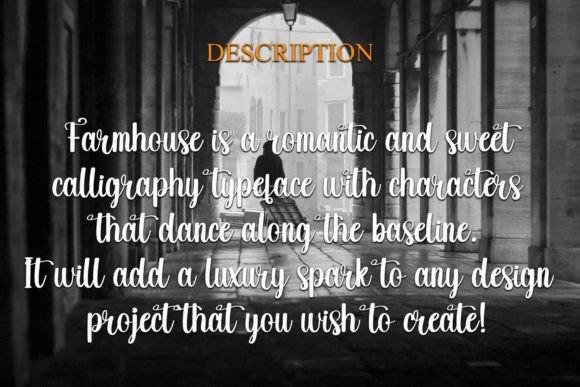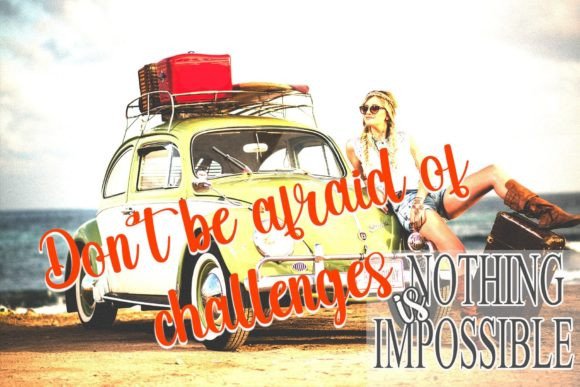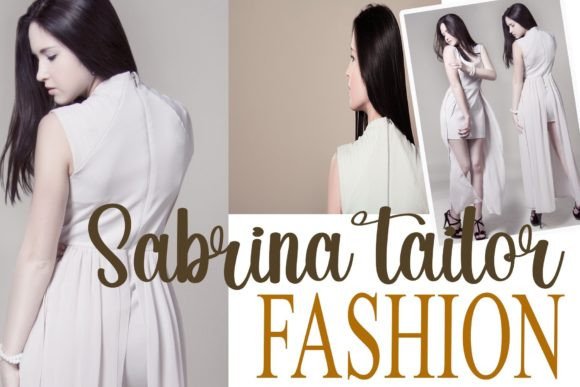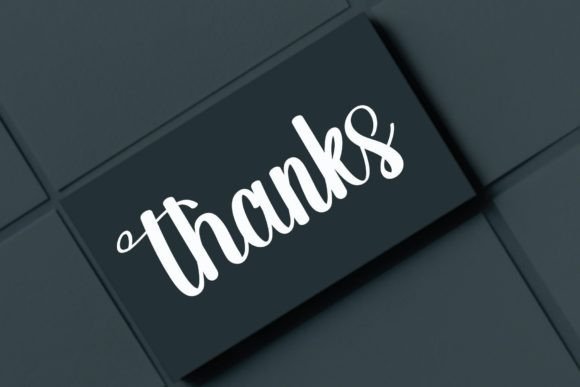
Introducing Farmhouse Font: Elevate Your Designs with Elegance and Style
Are you a designer or crafter looking for a font that exudes elegance and sophistication? Look no further than Farmhouse Font, a stylish and incredibly elegant handwritten font that’s perfect for a variety of design projects. From wedding invitations and thank you cards to quotes, greeting cards, logos, business cards, and more, Farmhouse Font is the perfect addition to any design that needs a touch of handwritten charm.
Farmhouse Font is a beautifully crafted handwritten font that’s designed to add a touch of elegance and sophistication to your designs. With its flowing lines and delicate curves, this font is perfect for creating stunning visual content that’s sure to impress. Whether you’re designing for a wedding, a business, or simply for fun, Farmhouse Font is the perfect choice.
- Elegant Handwritten Style: Farmhouse Font features a beautiful, handwritten style that’s perfect for adding a personal touch to your designs.
- Versatile: This font is perfect for a variety of design projects, including wedding invitations, thank you cards, quotes, greeting cards, logos, business cards, and more.
- Easy to Read: Despite its elegant style, Farmhouse Font is easy to read, making it perfect for designs that require a clear and concise message.
- Scalable: This font is highly scalable, making it perfect for use in a variety of design projects, from small business cards to large banners.
Uses for Farmhouse Font
Farmhouse Font is a versatile font that can be used in a variety of design projects. Here are some ideas to get you started:
- Wedding Invitations: Add a touch of elegance to your wedding invitations with Farmhouse Font. Perfect for formal or casual weddings, this font is sure to impress.
- Thank You Cards: Show your appreciation with beautifully designed thank you cards featuring Farmhouse Font.
- Quotes and Posters: Create stunning quotes and posters with Farmhouse Font. Perfect for social media, blogs, or print, this font is sure to grab attention.
- Greeting Cards: Create beautiful greeting cards for any occasion with Farmhouse Font.
- Logos and Branding: Use Farmhouse Font to create a unique and elegant logo for your business or brand.
- Business Cards: Stand out from the crowd with beautifully designed business cards featuring Farmhouse Font.
Here are some tips for getting the most out of Farmhouse Font:
- Pair with Other Fonts: Experiment with pairing Farmhouse Font with other fonts to create a unique and interesting design.
- Use in Combination with Images: Use Farmhouse Font in combination with images to create a beautiful and eye-catching design.
- Experiment with Colors: Try out different colors with Farmhouse Font to create a design that’s perfect for your brand or project.